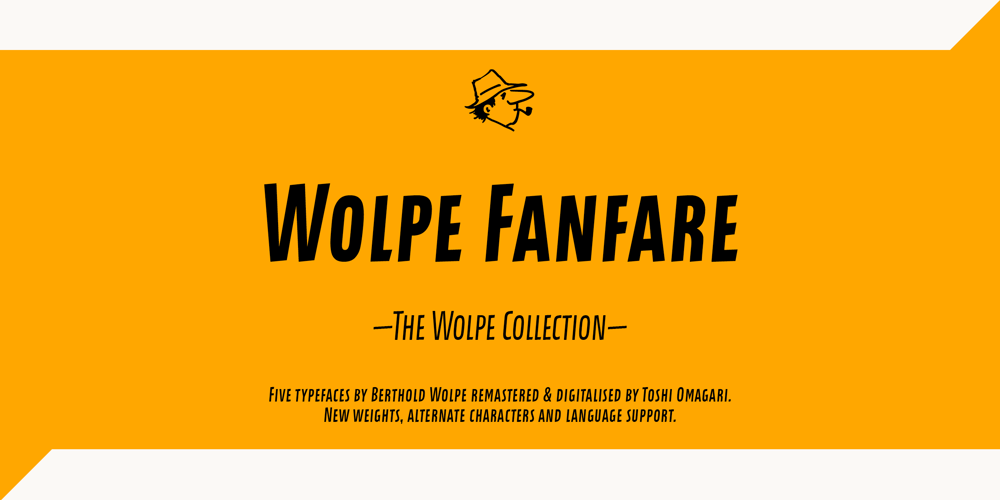
Wolpe Fanfare Font Family was designed by Berthold Wolpe, Toshi Omagari and published by Monotype. Wolpe Fanfare contains 6 styles and family package options. “Fanfare is such a fun typeface,” says Toshi Omagari, who revived the design for The Wolpe Collection. “It was my happiest discovery when I was digging through the Monotype archive. I came across it and had to check the designer’s name.” No wonder: Fanfare is modern, light and playful – not what you’d expect from an 80-year old design. From the original, very heavy weight design, Omagari started by creating a black weight, followed by four lighter weights for Wolpe Fanfare, preserving the character of the letterforms all the way down to a thin version. “I wanted to do more than digitize the original weight,” he says. “It’s surprisingly modern, and its skeleton, its basic structure, is so beautiful.” The new design packs more into a small space than most typefaces. It’s a natural for publication and advertising design. With displays capable of revealing fine details such as Fanfare’s subtly slanted baseline, its lovely forms will easily translate to mobile devices. With an extended European character set that includes Greek and Cyrillic language support, Wolpe Fanfare can speak in many languages.